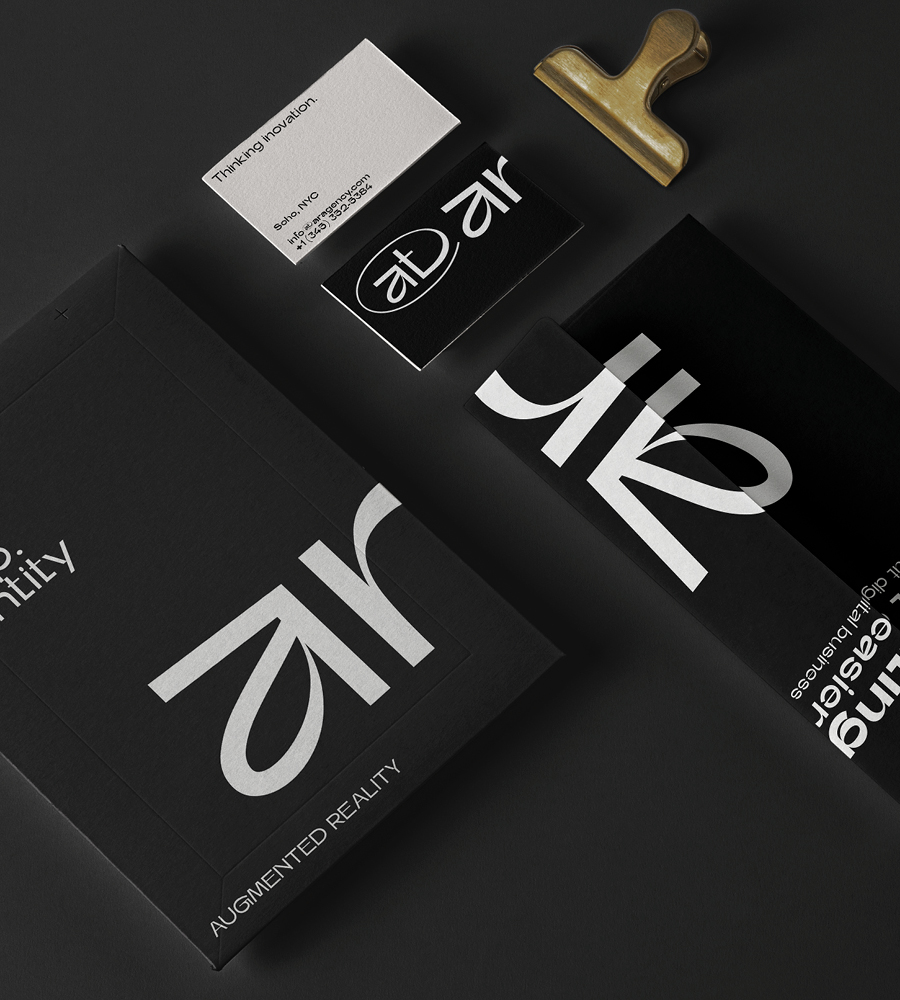
Ariom is a fresh, geometric, sans-serif font family inspired by iconic typefaces. Ariom has a big x-height value, geometrical letterforms, sharp edges, and strong stroke contrast as the neo-grotesque fonts from the 20th Century.